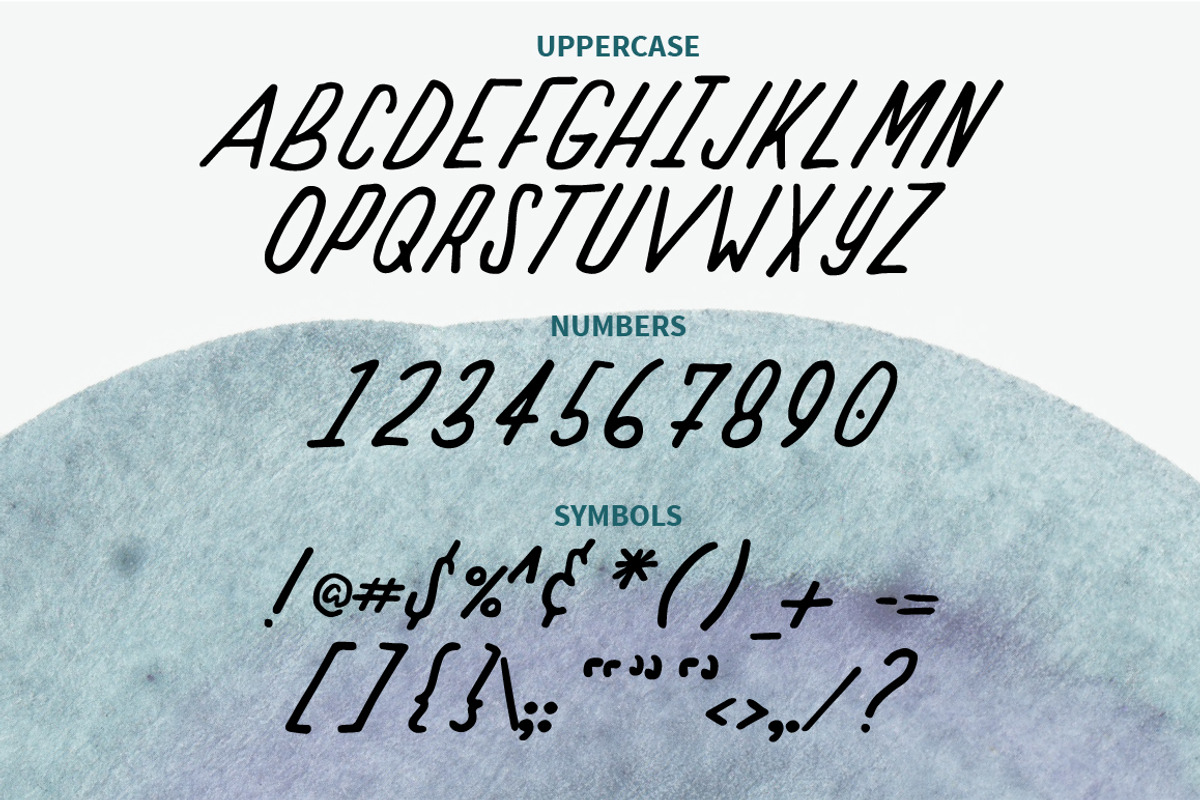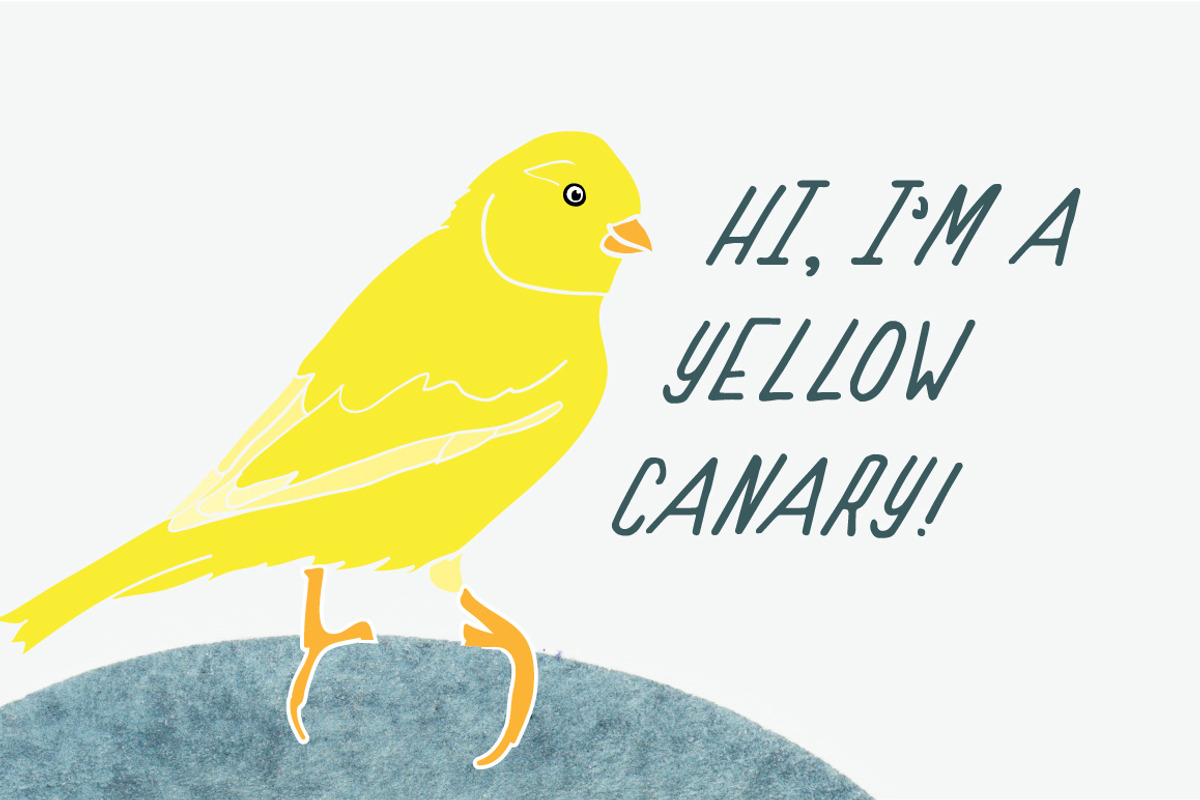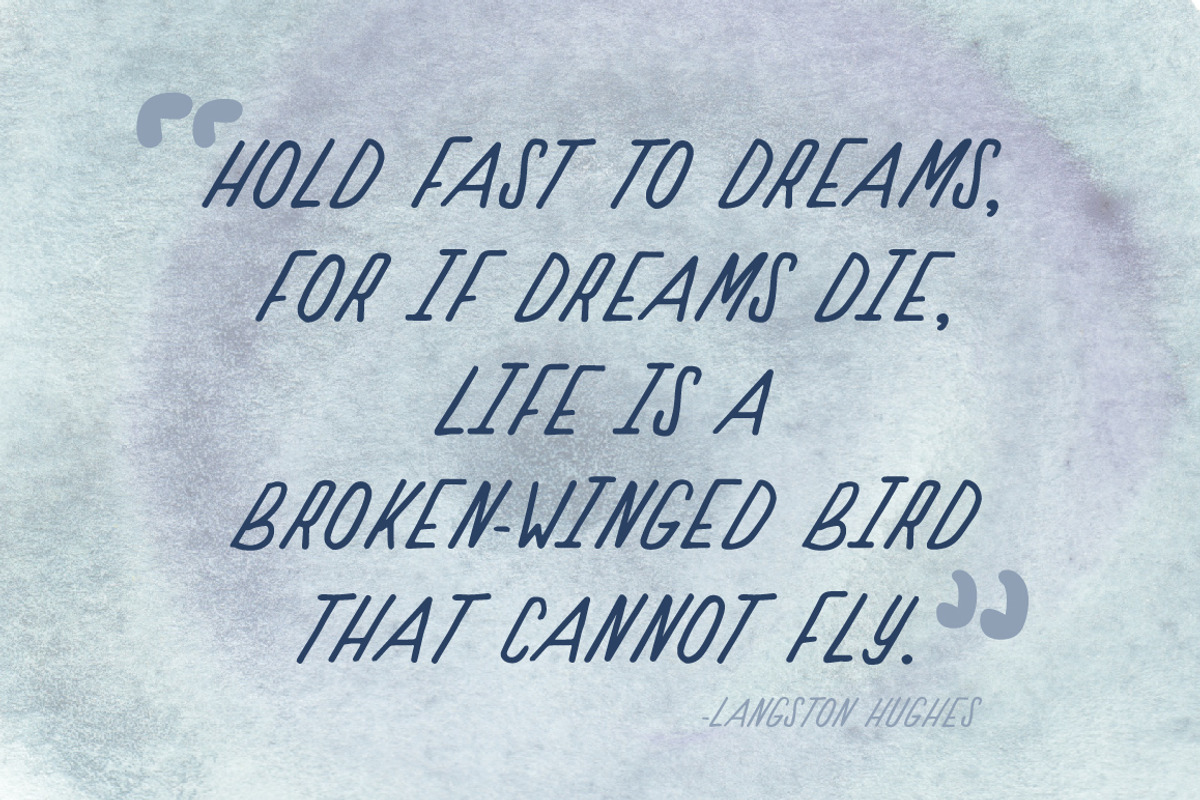
Yellow Canary Font
Yellow Canary Font by Hello Brio is a font selected for branding, posters, packaging, typography.
- The font was carefully created by hand using a thin brush marker and features a full set of glyphs including uppercase letters, numbers, and
Why Yellow Canary Font is worth a look
Yellow Canary Font by Hello Brio fits naturally into Branding, posters, packaging, typography.